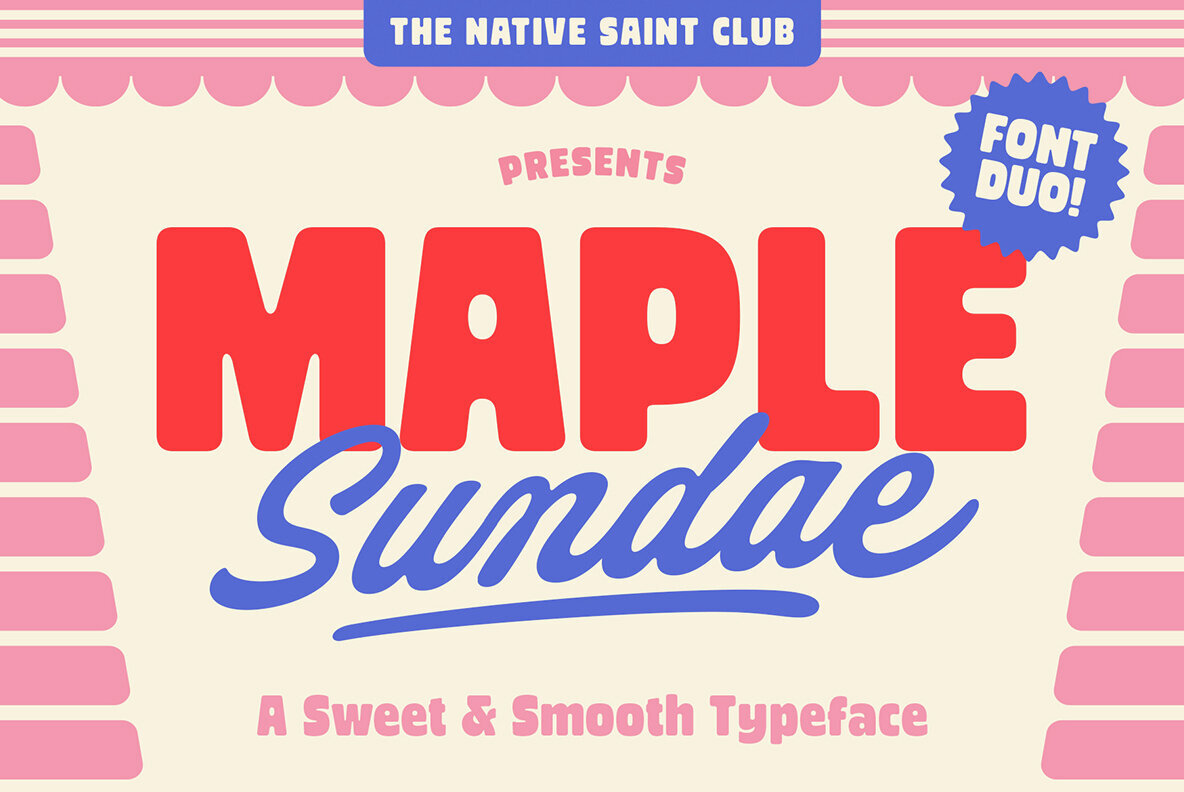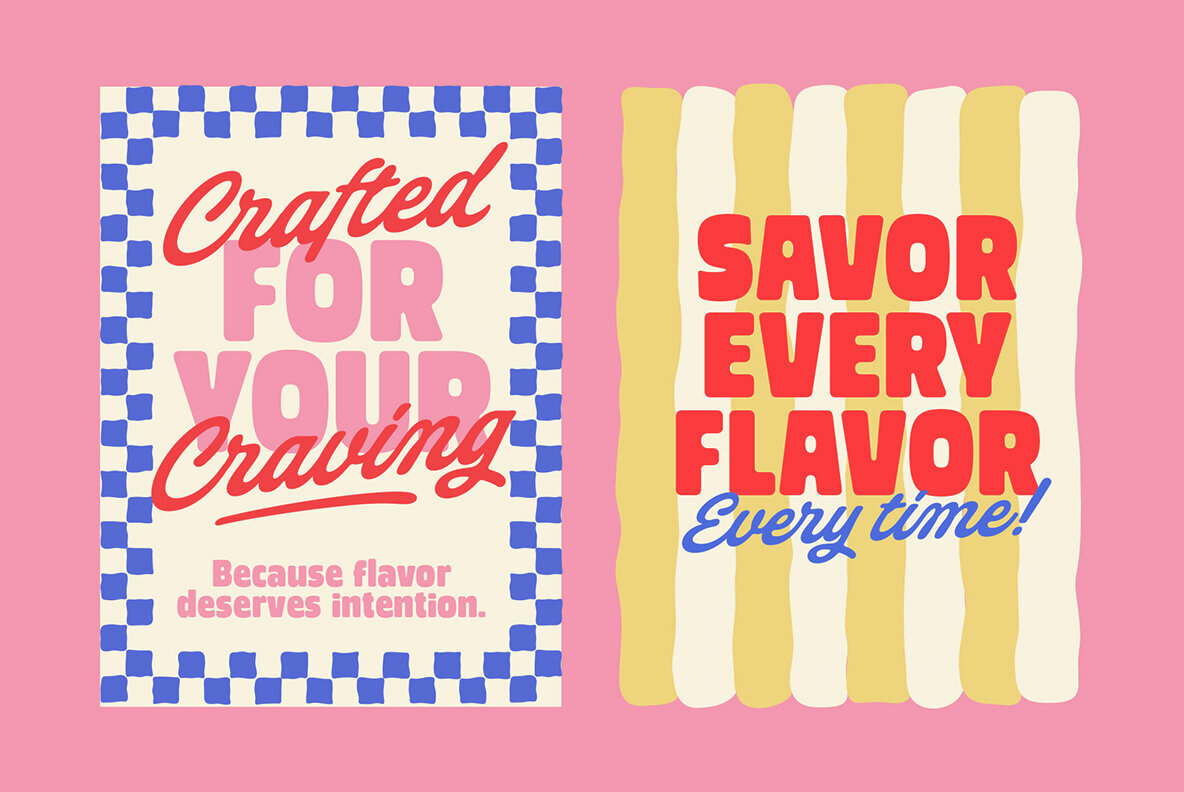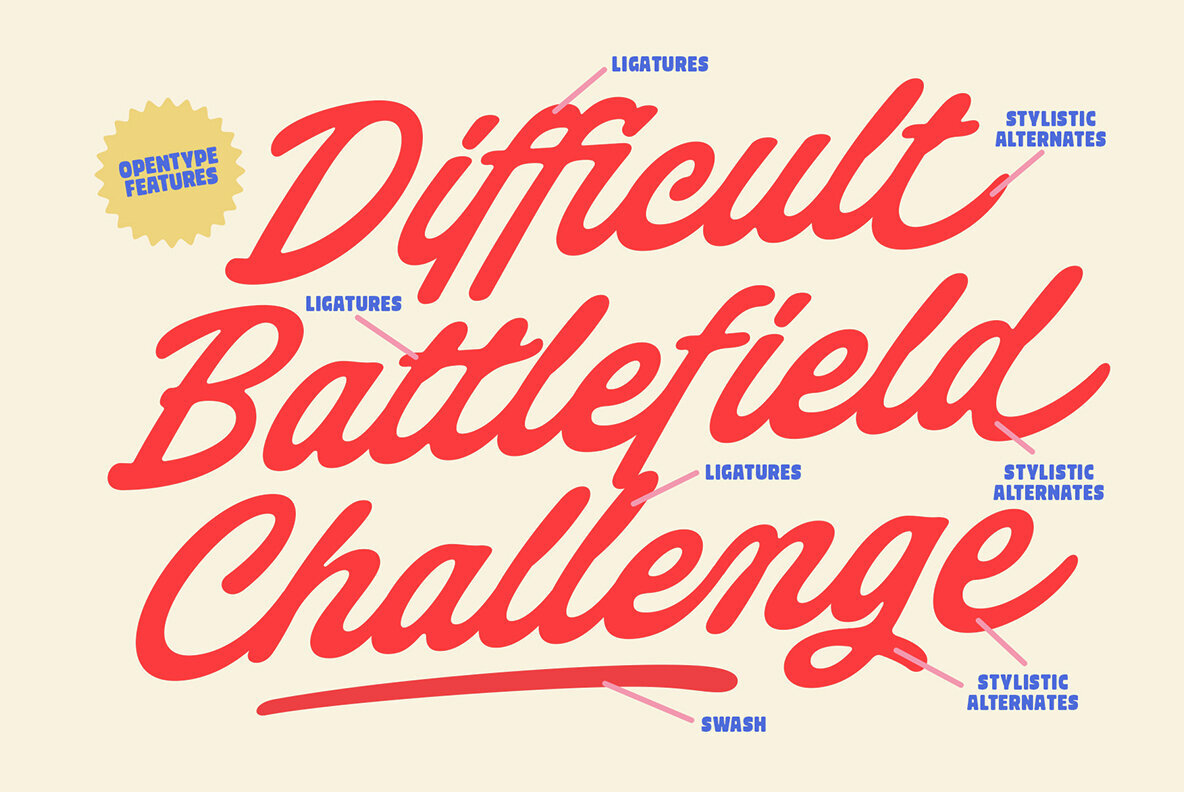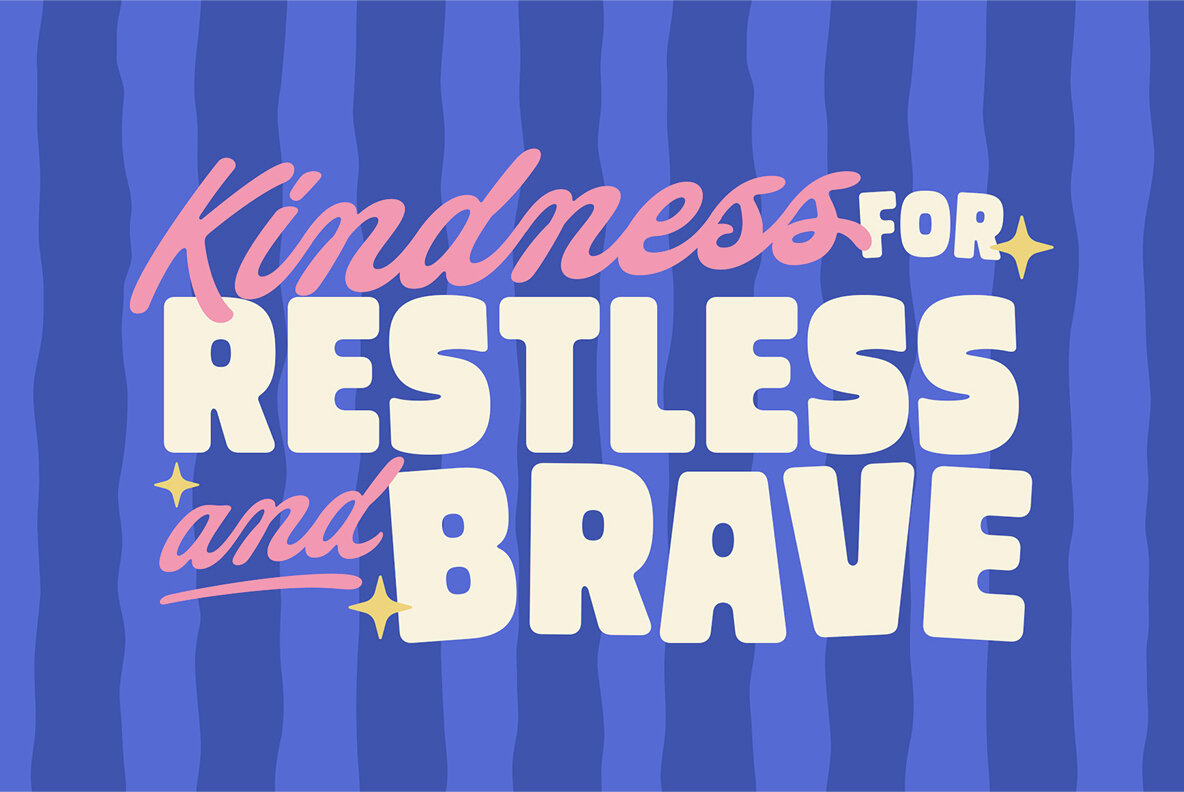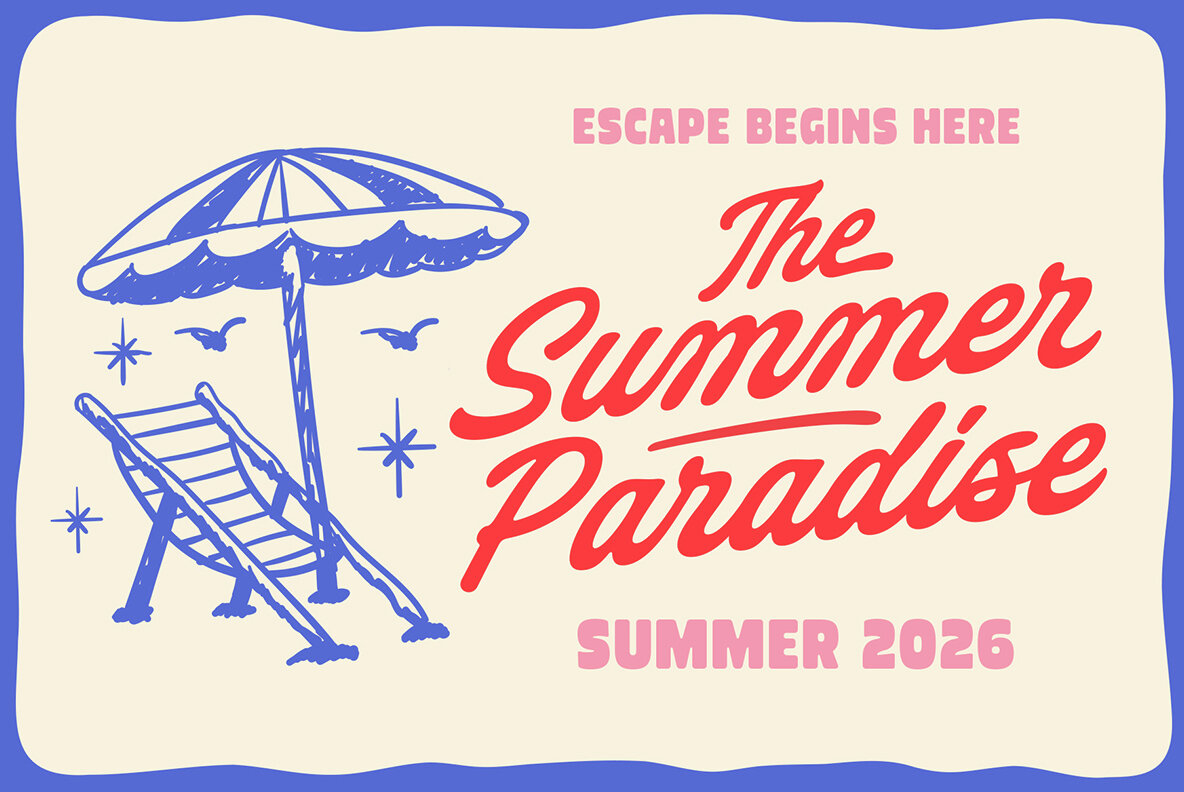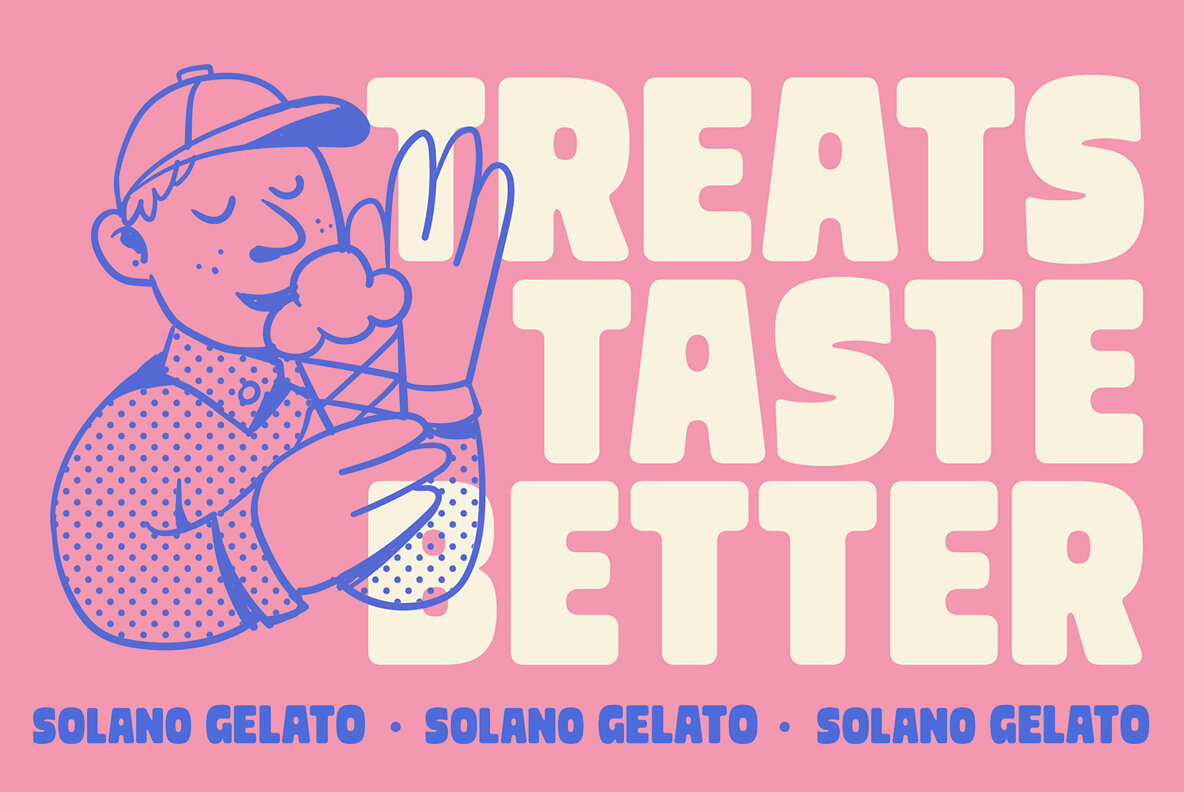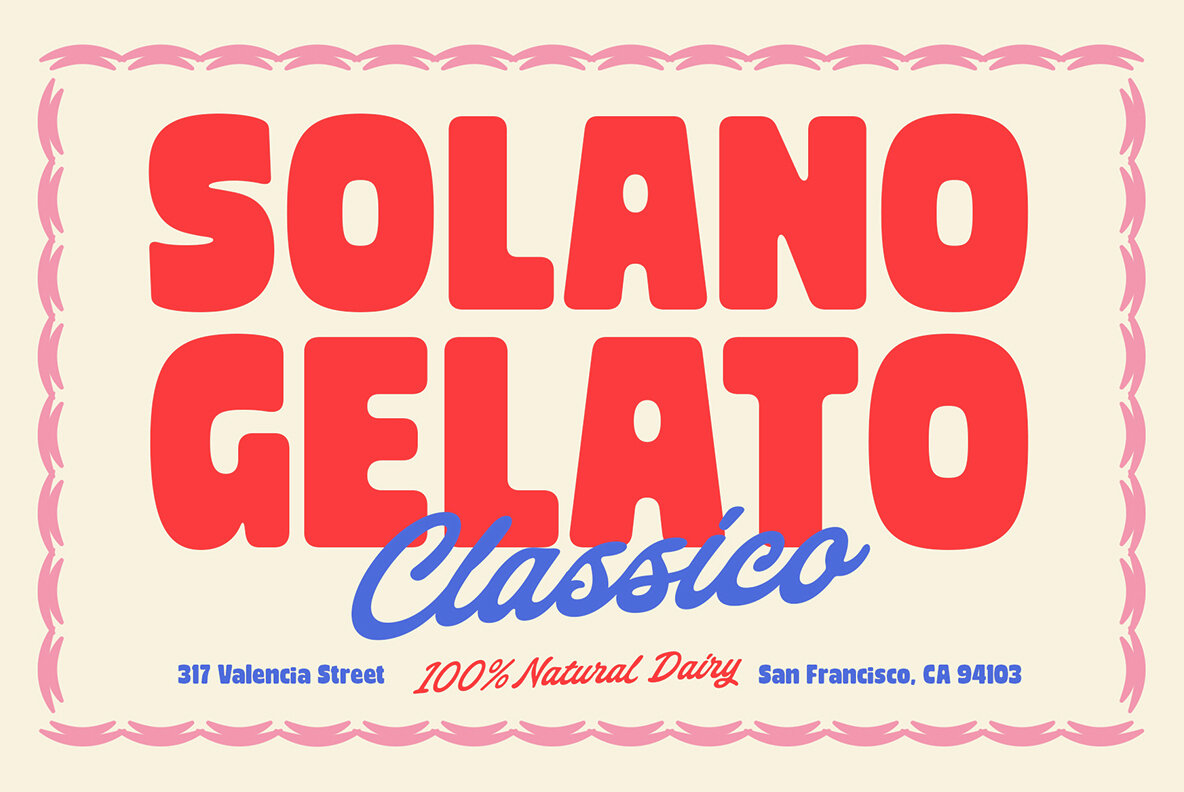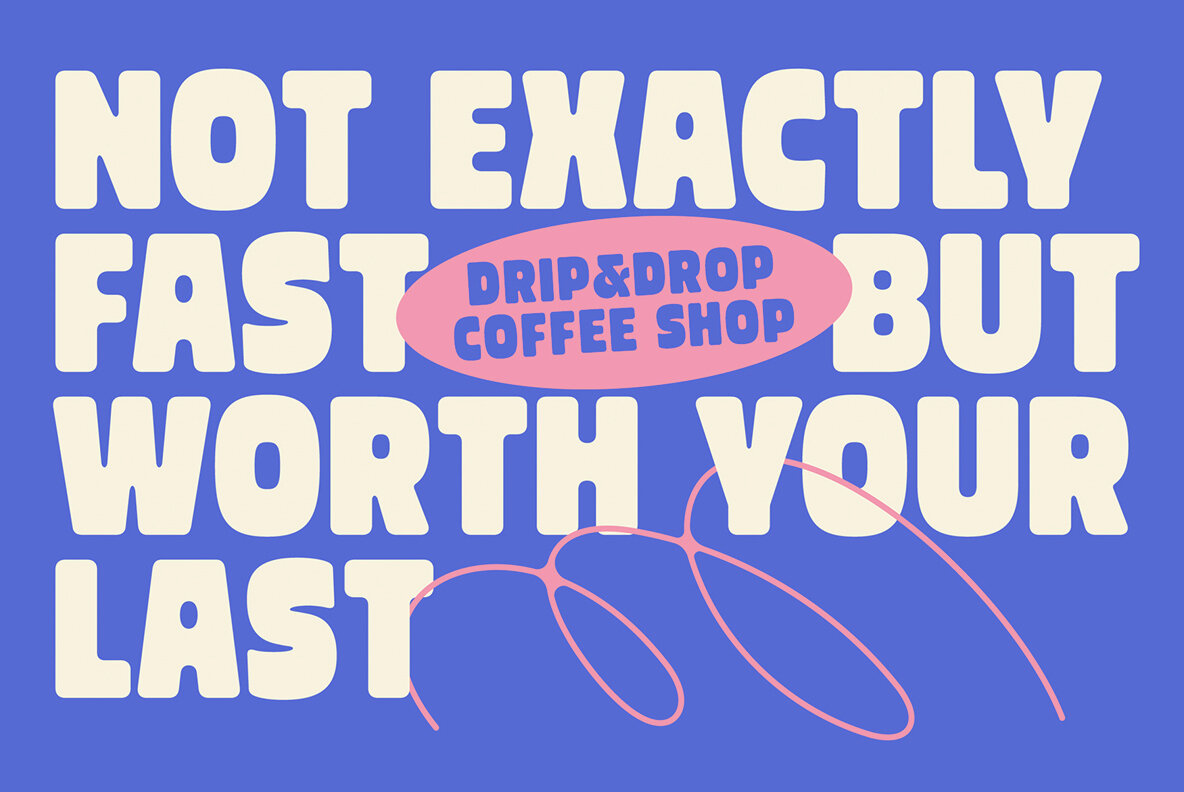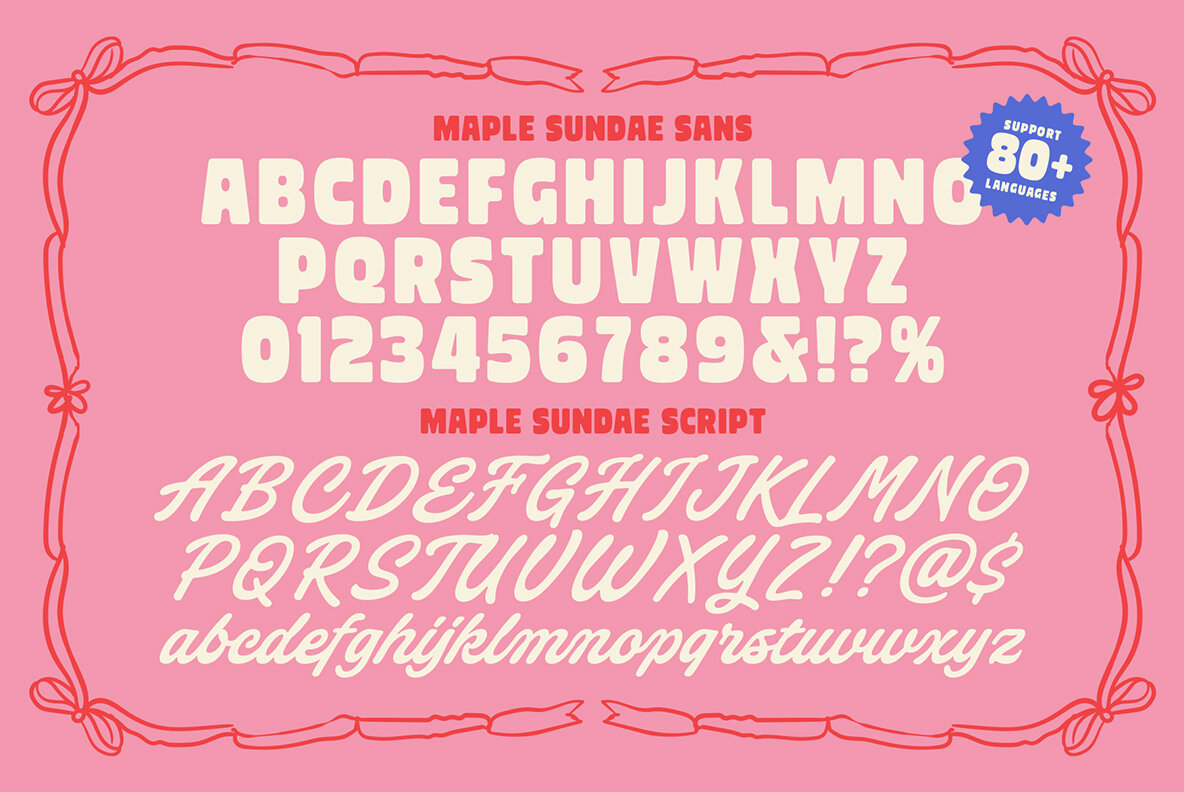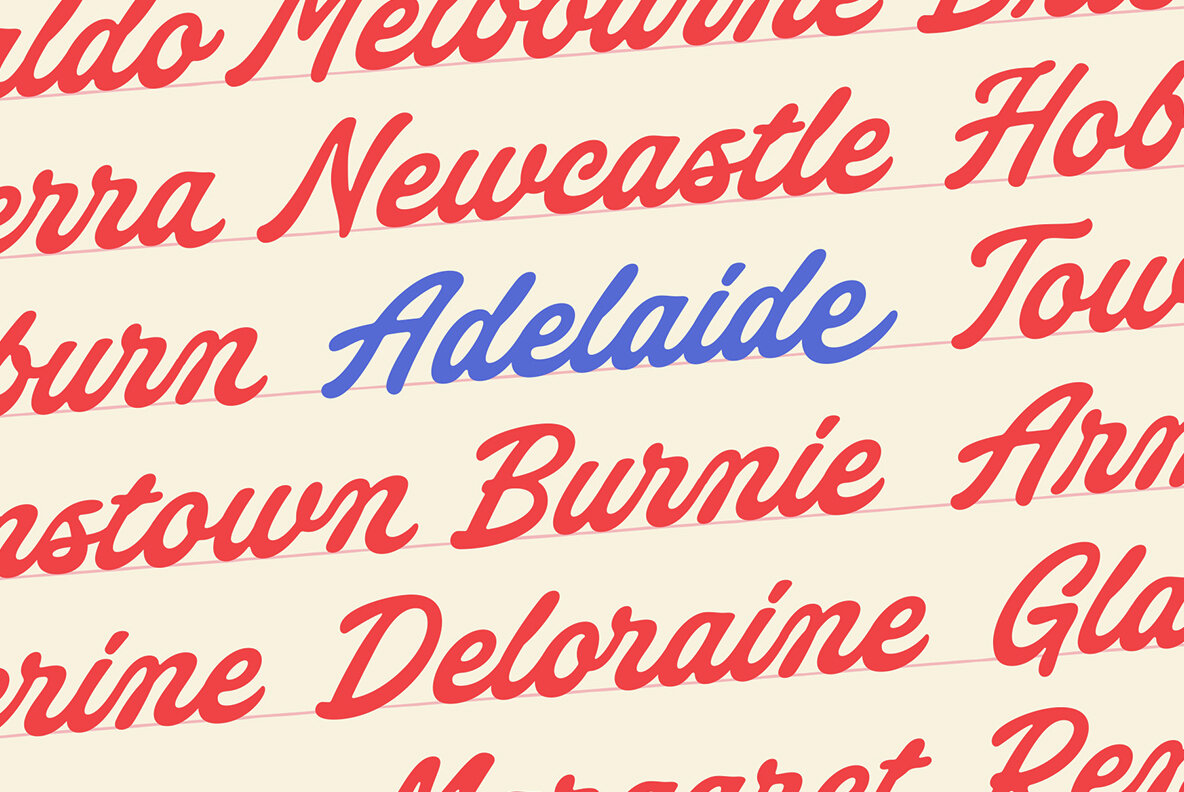
TNSC Maple Sundae Font
Maple Sundae Sans
Maple Sundae Script
This delightful font pair captures the essence of charm and versatility, making it an excellent choice for various design endeavors. Featuring a chunky, rounded sans serif coupled with a flowing handwritten-style script, this duo offers a balanced blend of boldness and friendliness. Features: Whether you're crafting a branding masterpiece or adding warmth to digital content, TNSC Maple Sundae provides the subtle yet engaging touch your project needs.TNSC Maple Sundae: Sweet and Smooth Font Duo